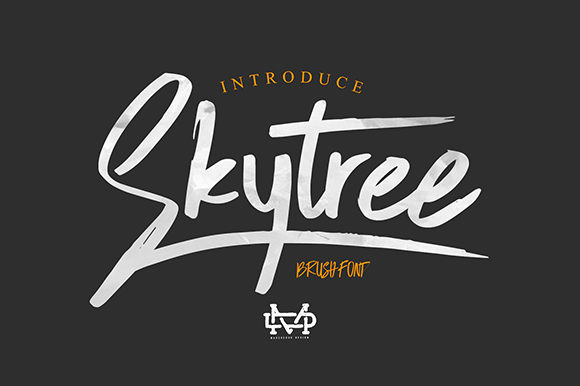
**Get Ready to Script a Moment to Remember with Skytree Font**
Are you dreaming of an enchanting wedding invitation that sets the tone for a day filled with love and magic? Look no further than Skytree Font, the captivating script font that will turn your words into a work of art.
**Enchanting and Soulful:**
Every stroke of Skytree Font is crafted with the elegance of a brush pen, creating a swoon-worthy script that dances across the page like a gentle whisper. Its soft curves and dreamy flow evoke a sense of romance and timeless beauty, perfect for capturing the essence of a heartfelt occasion.
**Unleash Your Creativity:**
With Skytree Font in your design arsenal, your wedding cards will be more than just invitations; they will be cherished keepsakes that tell the story of your love. Whether you're a professional designer or simply a creative soul, this font empowers you to express your unique style and create something truly captivating.
**Perfect for Every Occasion:**
Skytree Font's charm isn't limited to weddings; it adds a touch of enchantment to any special occasion. From birth announcements to anniversary cards, this font will lend a timeless elegance to your creations. Its versatility makes it a must-have for designers and anyone who appreciates the beauty of the written word.
**A Reflection of Your Love:**
In the symphony of your love story, Skytree Font will be the conductor, guiding your words with grace and emotion. Allow your sentiments to soar and create a tangible reminder of your special day, a masterpiece that will be treasured for a lifetime.